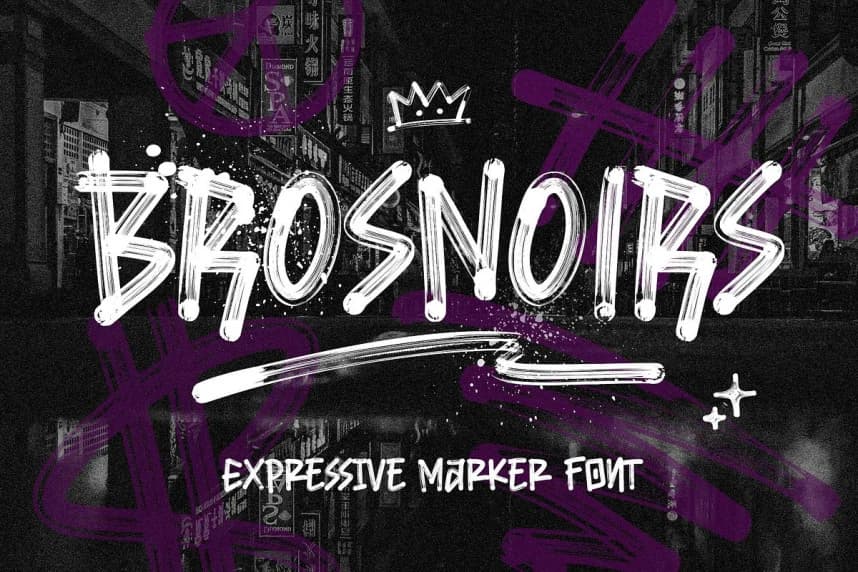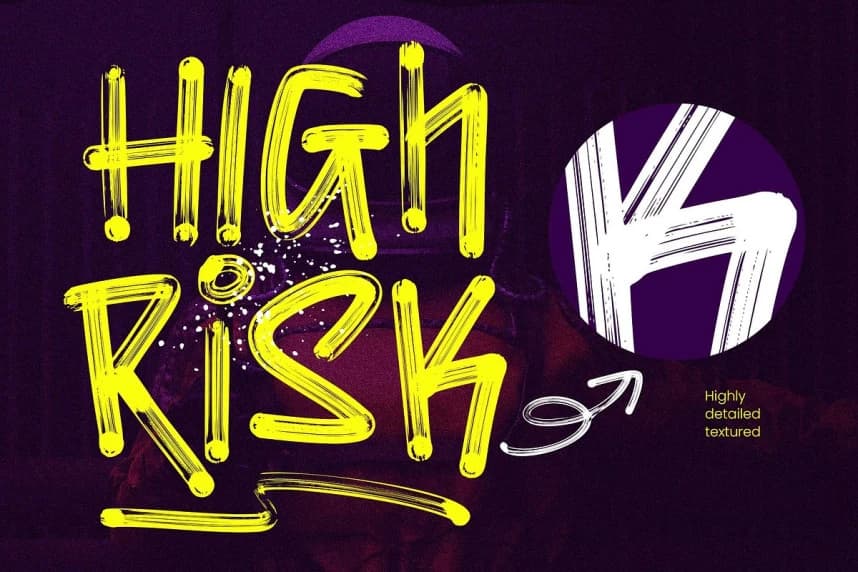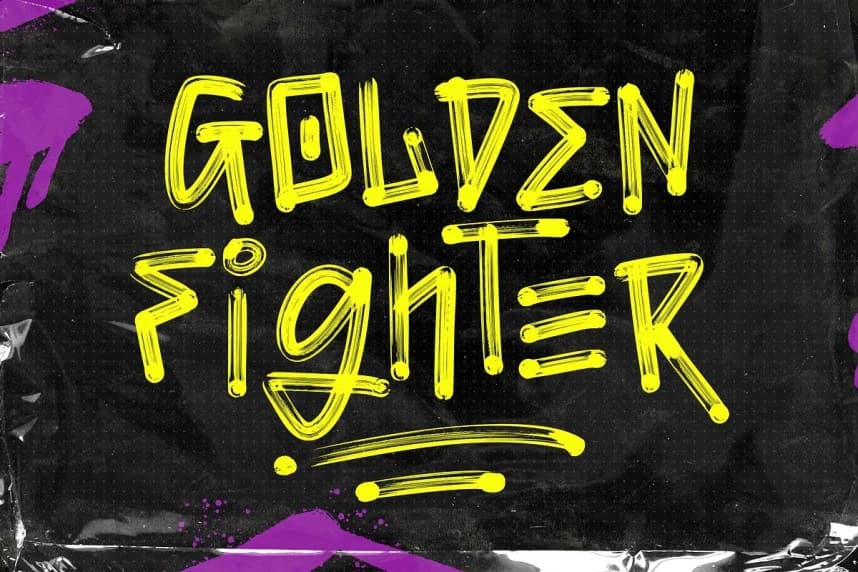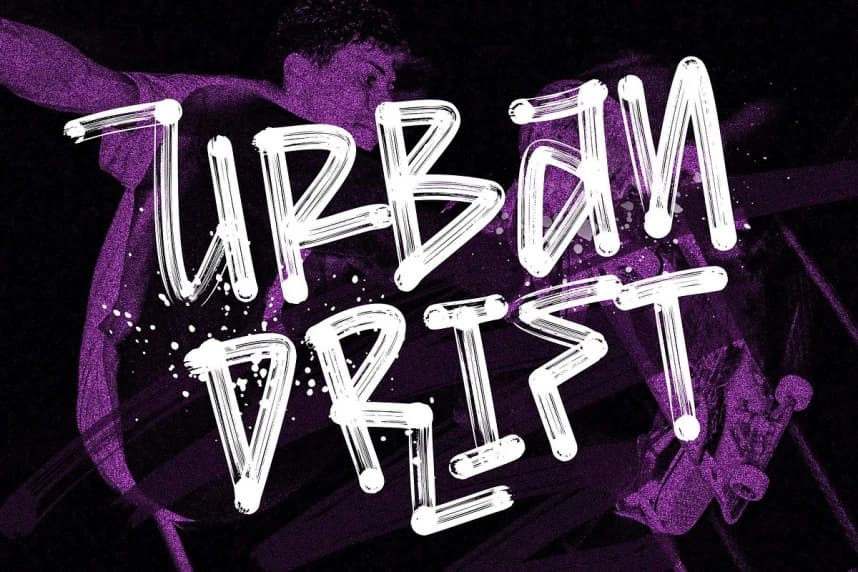
Brosnoirs Brush Font
Brosnoirs Brush Font is a bold, textured marker font inspired by raw graffiti strokes and urban street culture. Every character feels hand-drawn with rough pressure and imperfect edges, giving your designs an authentic, expressive marker look that feels alive and unapologetic.